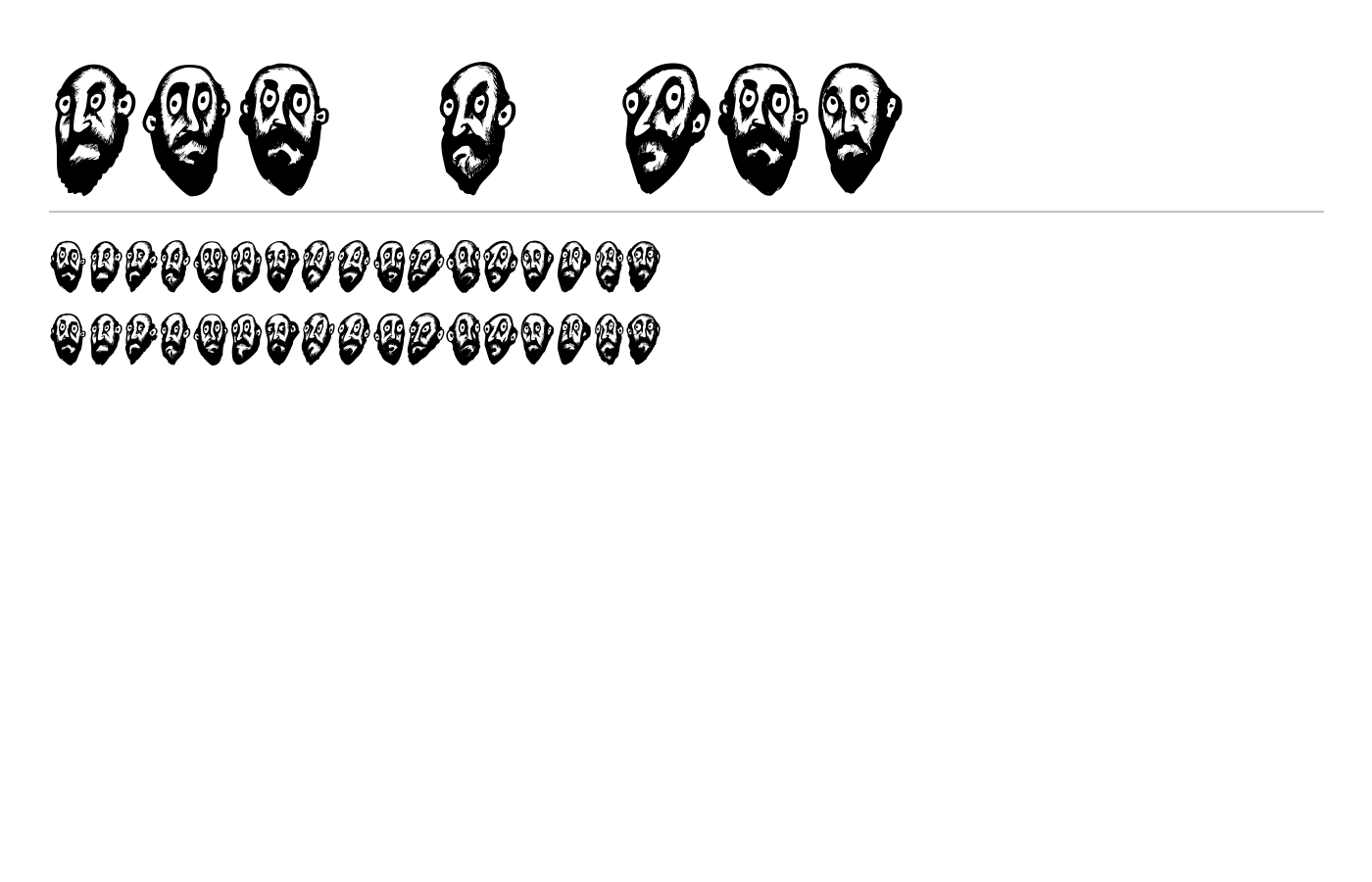
Beard Man Font is a whimsical and highly stylized display font made up entirely of quirky illustrated bearded faces instead of traditional letters. Its playful, hand-drawn character gives it a unique, artistic vibe ideal for creative projects seeking humor or a distinctive personality. This font works best in logos, posters, and branding where an eye-catching, fun statement is desired rather than conventional readability.
Beard Man Font
About Beard Man Font
| Font family | Beard Man Font |